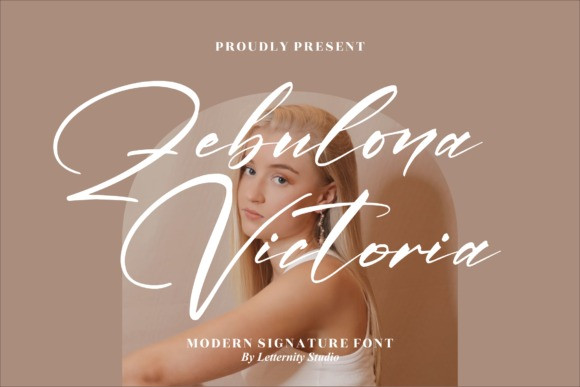
Zebulona Victoria Font
Zebulona Victoria Font is a magical script font carefully created with a touch of elegance. It is PUA encoded which means you can access all glyphs and swashes with ease!